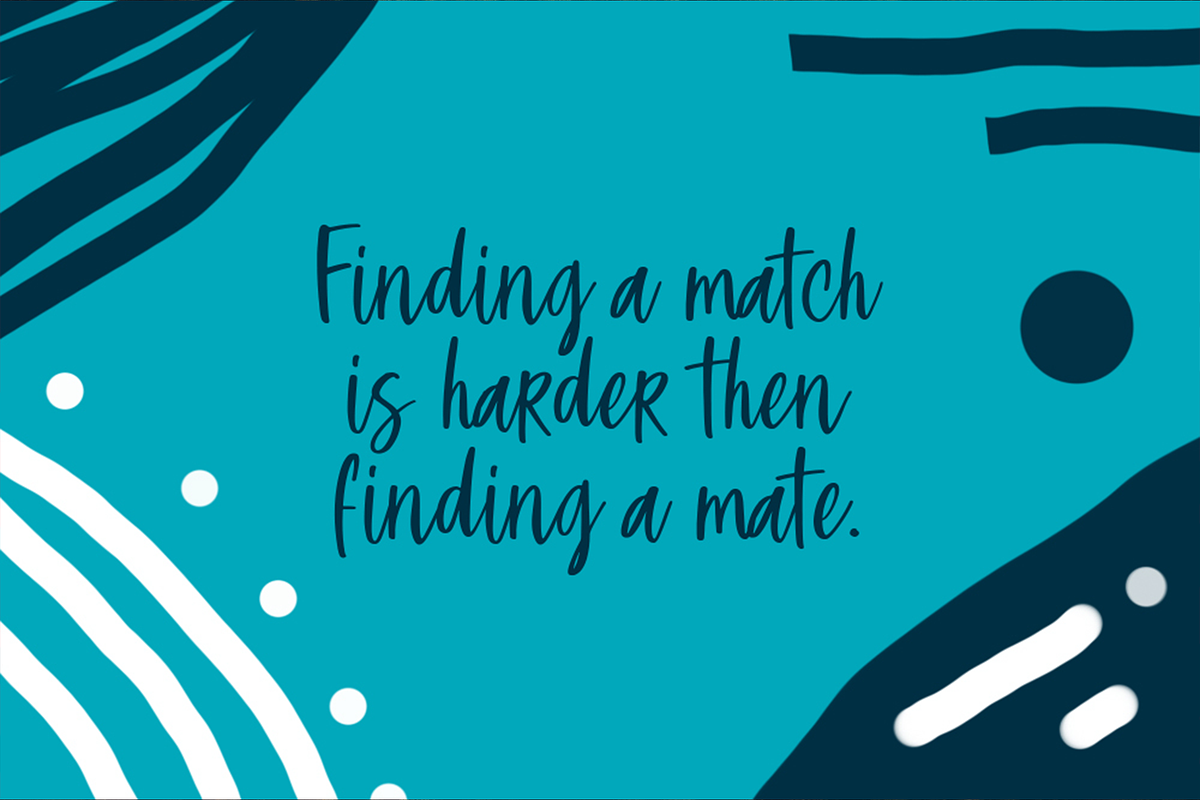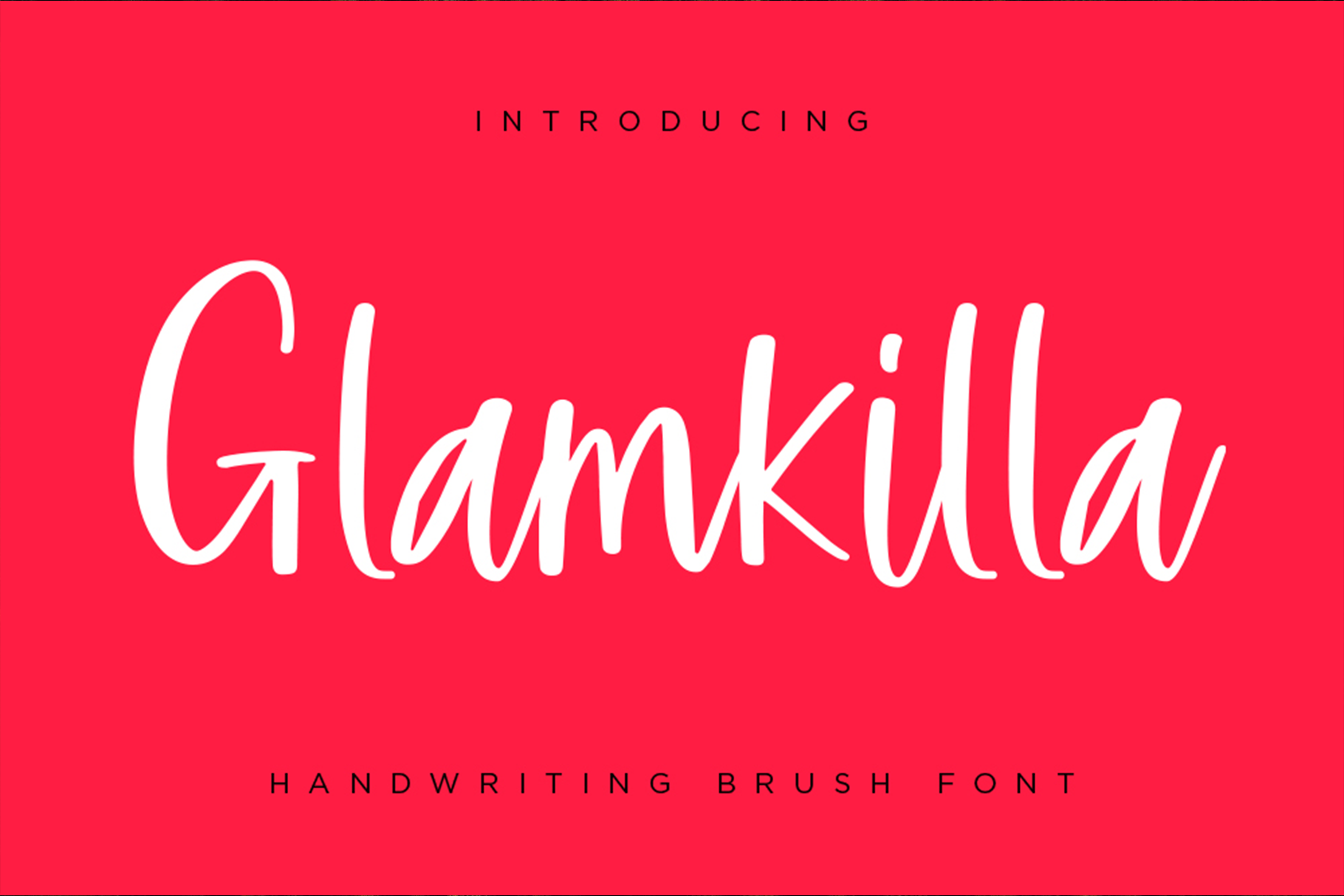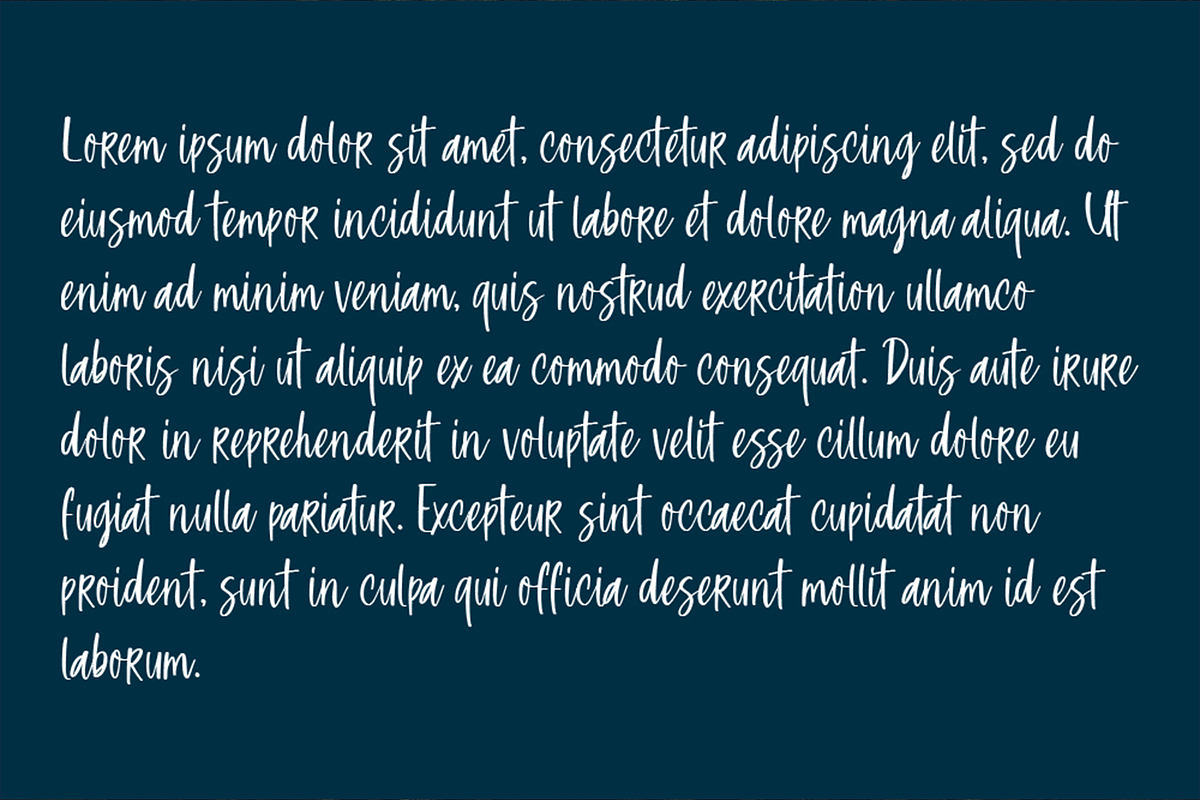
Glamkilla – Handwriting Brush Fonts
Glamkilla is a casual fun handwritten font using a brush pen. Clean and a little bit quirky. Perfectly fit for your logo, branding, wedding, mood board, fancy products, cosmetics, fashion, sign, display, Instagram content, etc.